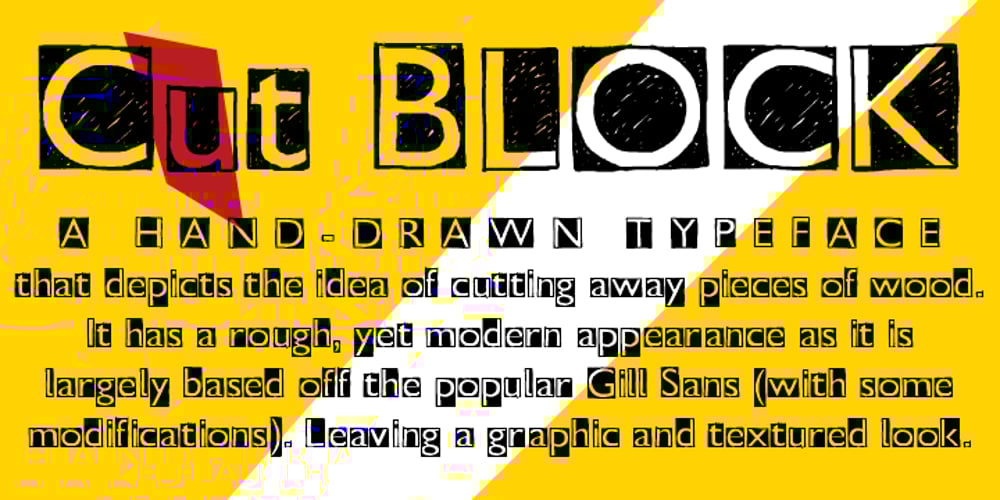
Cut Block Font Family was designed by Adam Ladd and published by Adam Ladd Design. Cut Block contains 1 styles and family package options. A hand-drawn typeface that depicts the idea of cutting away pieces of wood. It has a rough, yet modern appearance as it is largely based off the popular Gill Sans (with some modifications). Leaving a graphic and textured look.